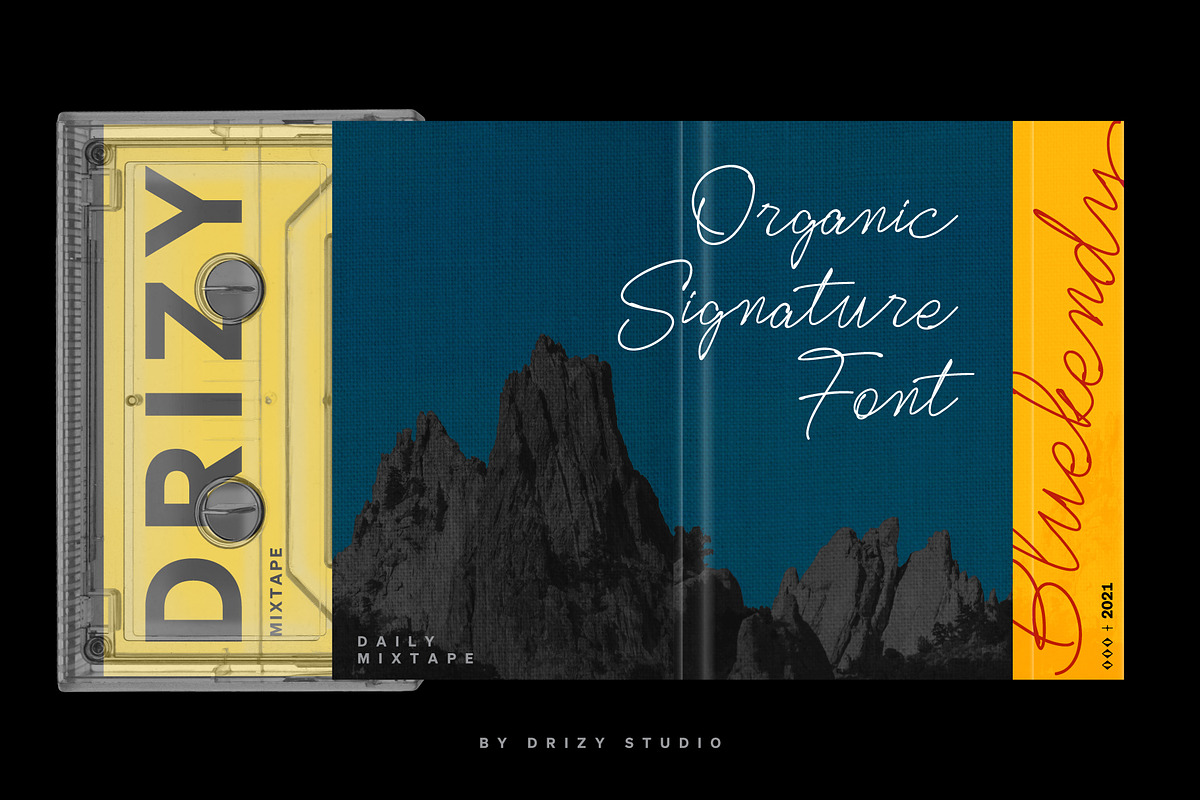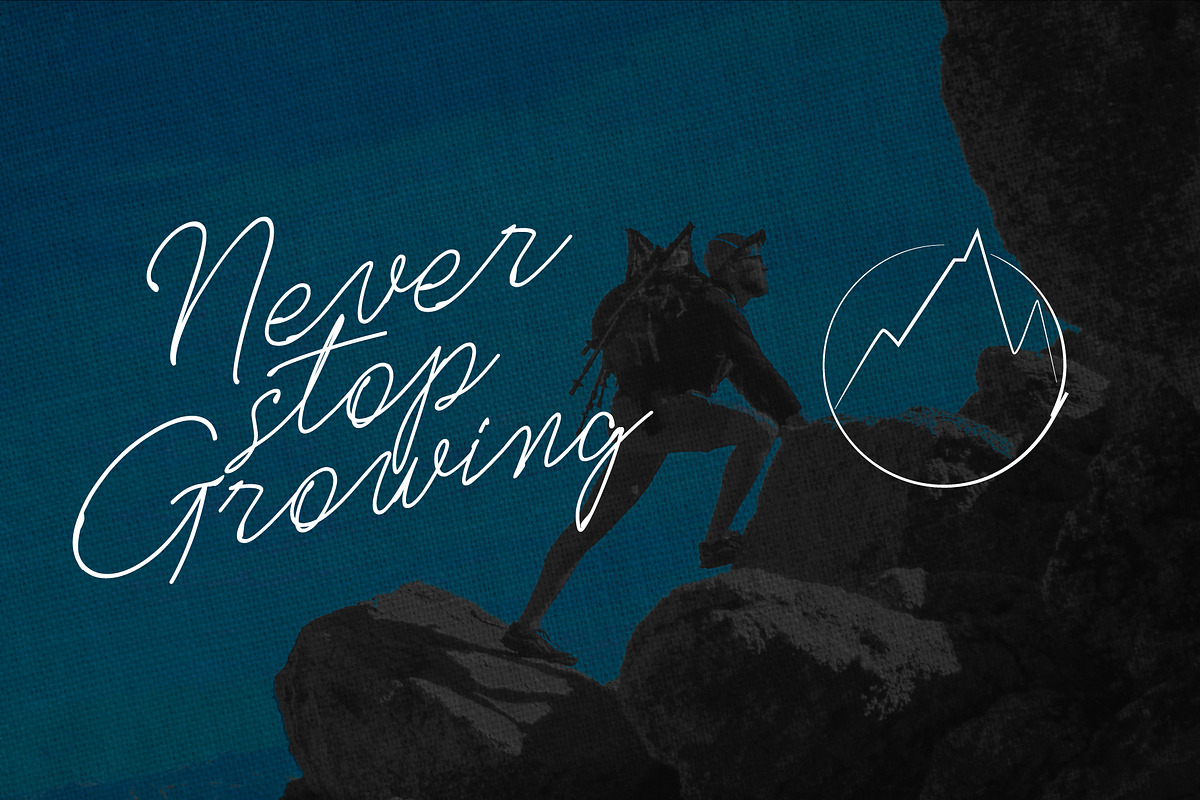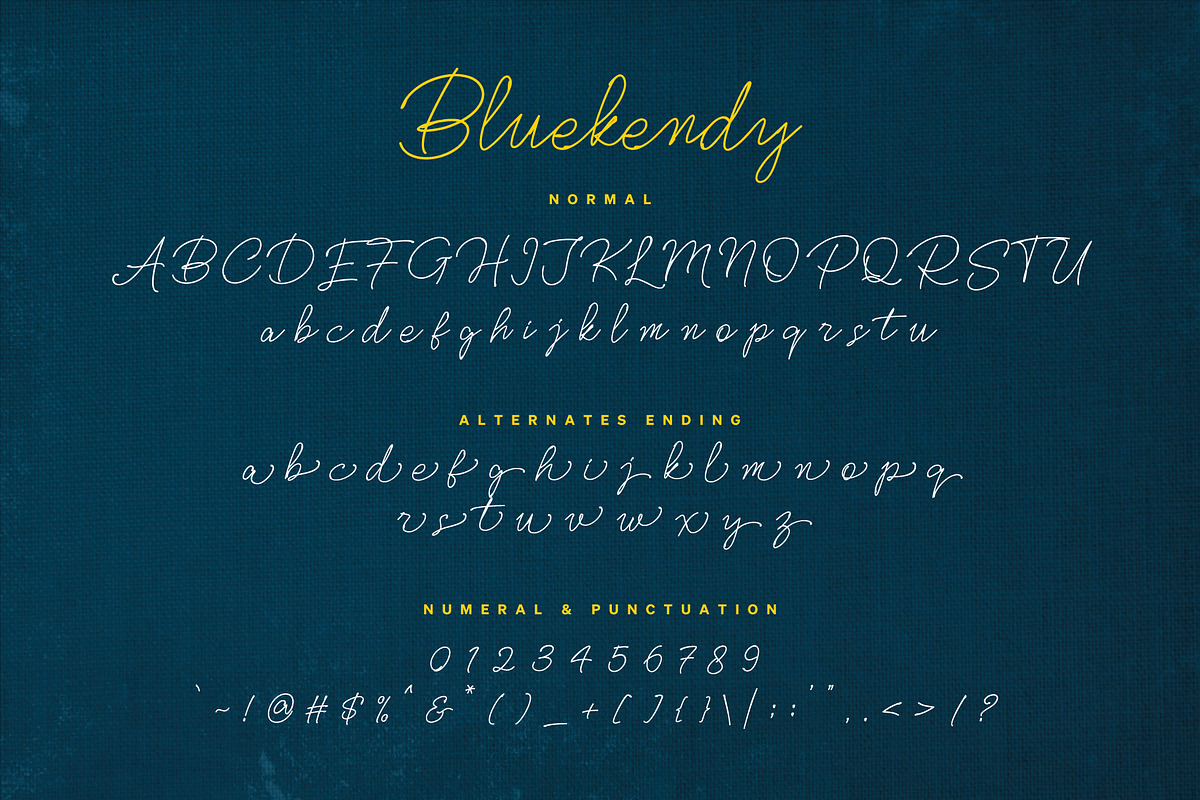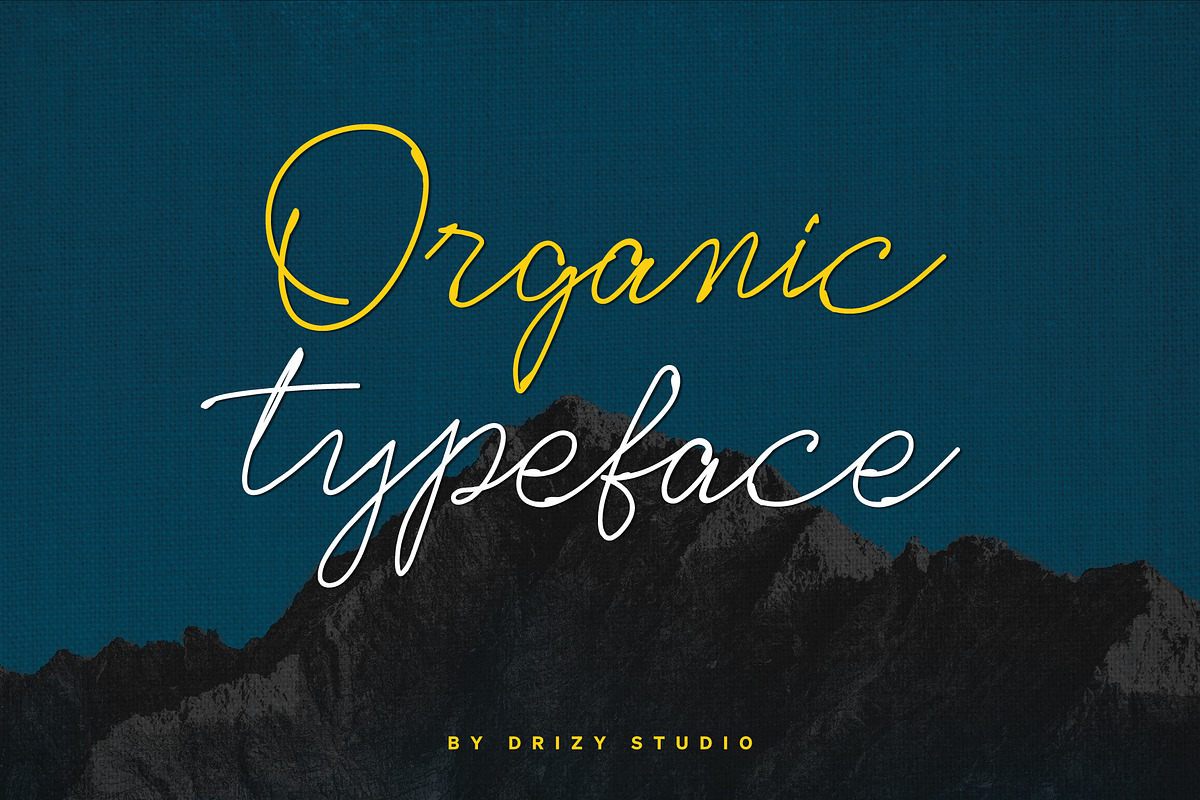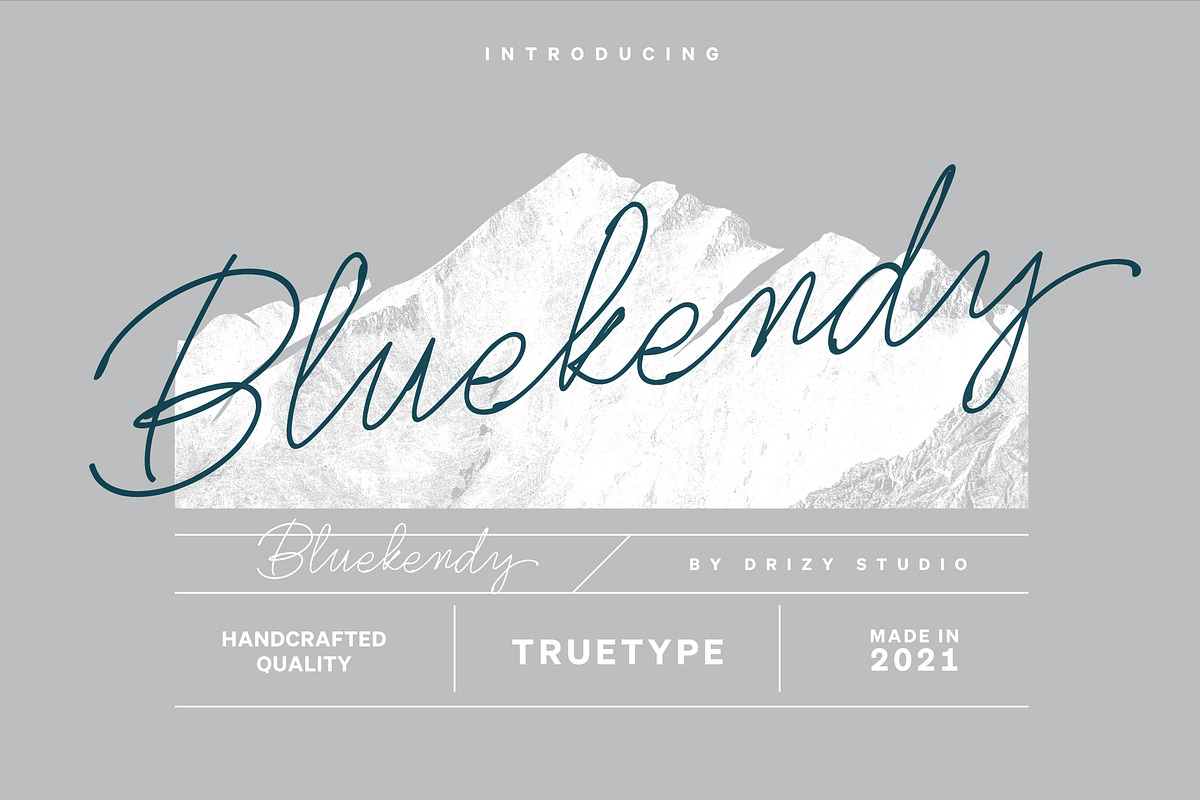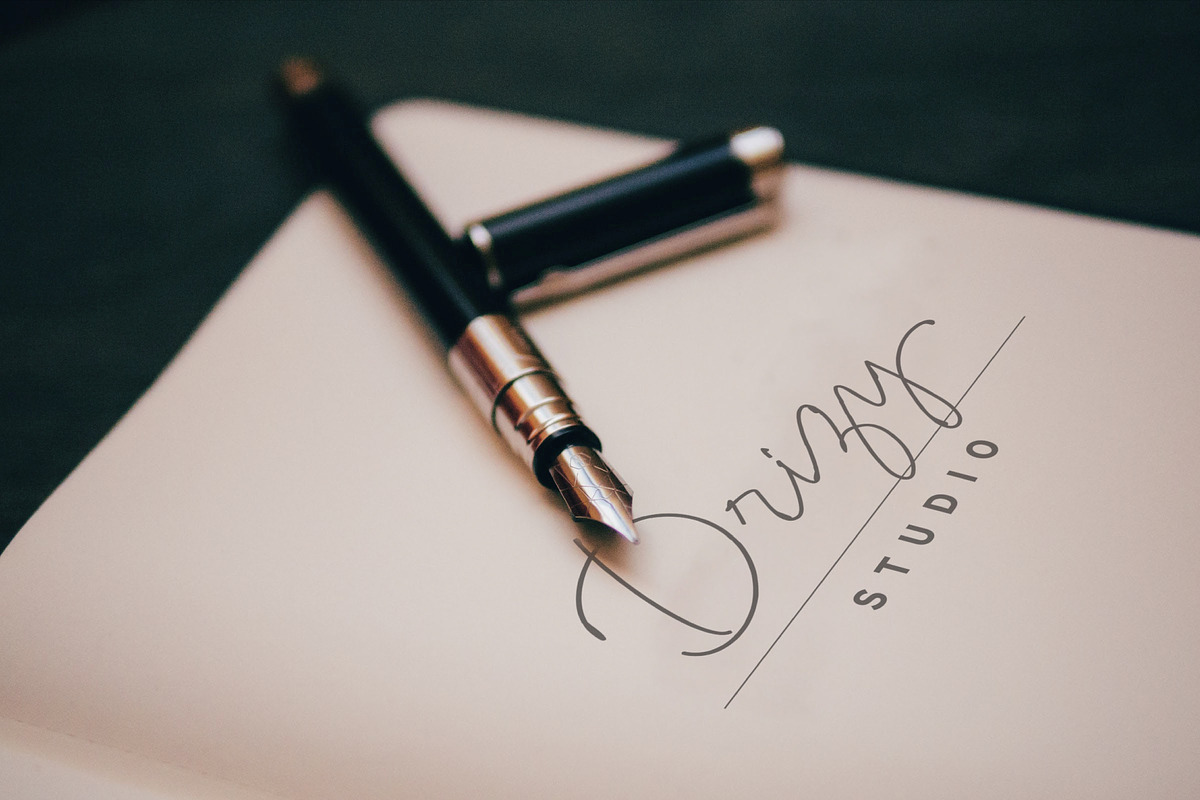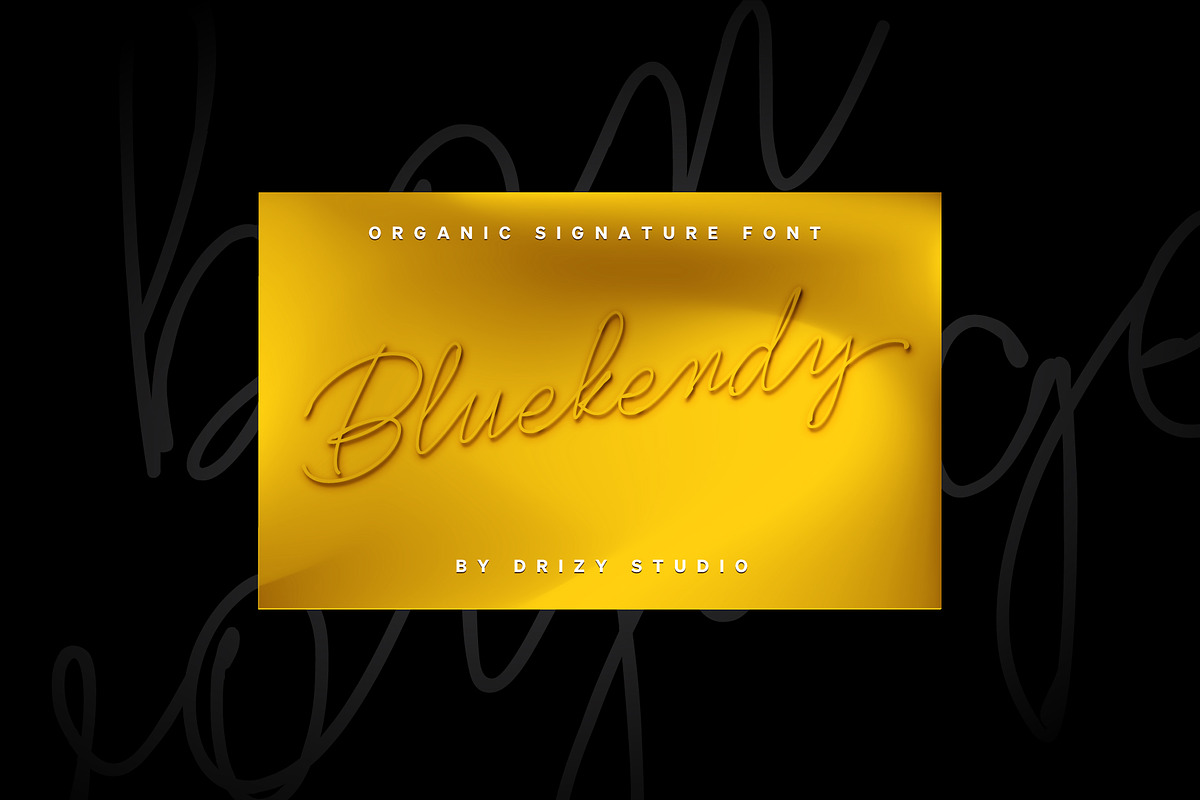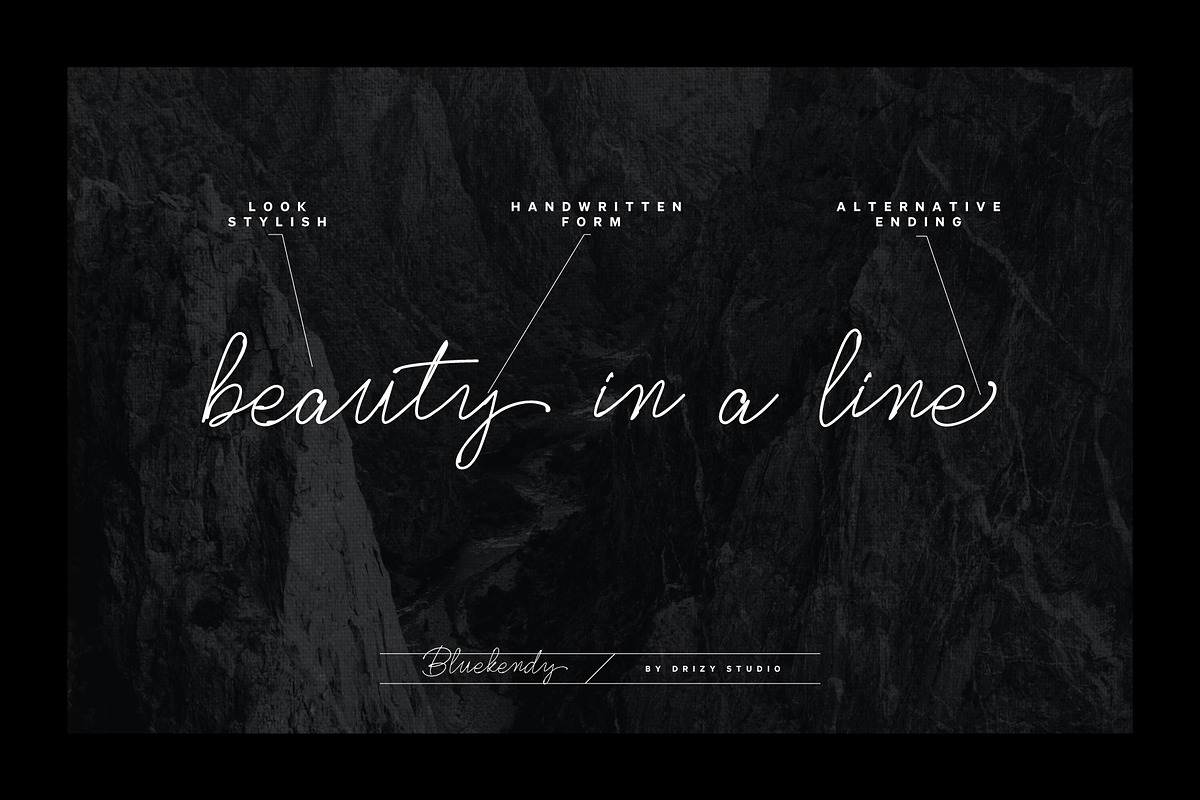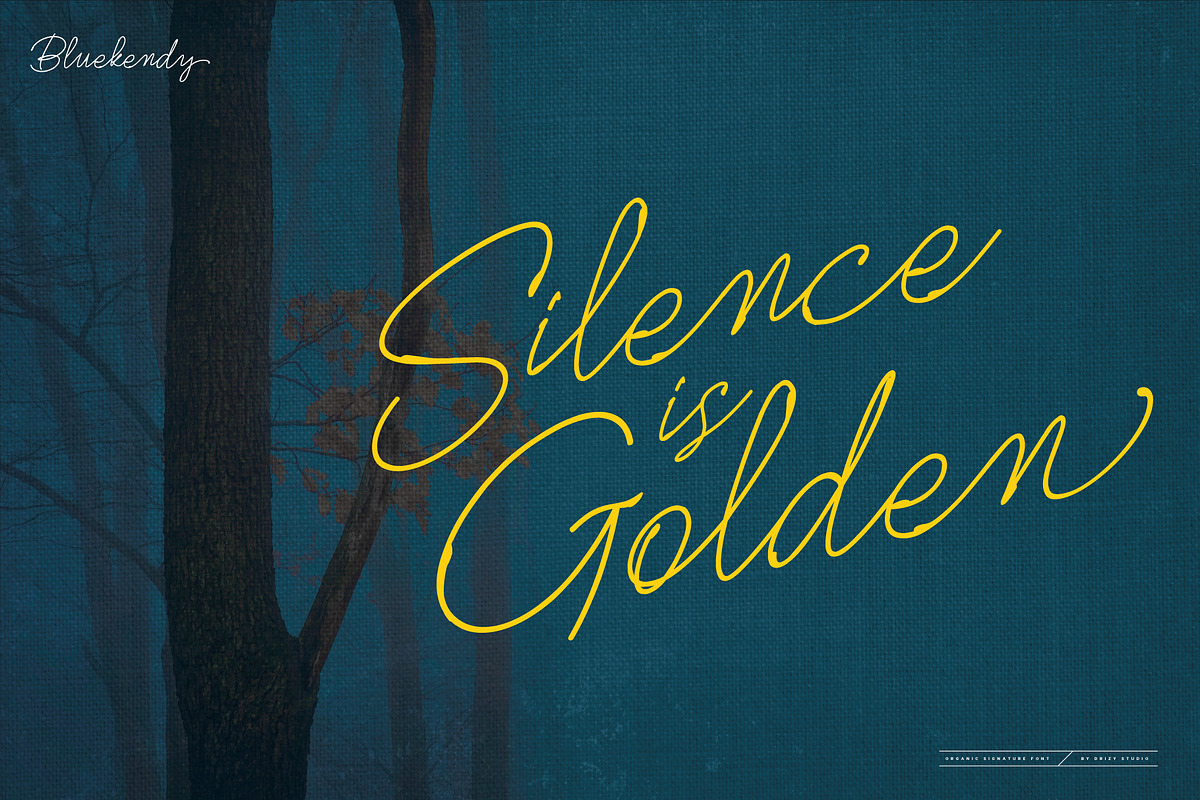
Bluekendy
Bluekendy is a simple signature script font from Drizy Studio. Offering all the basic styles you will need for a successful project.
Bluekendy Features: